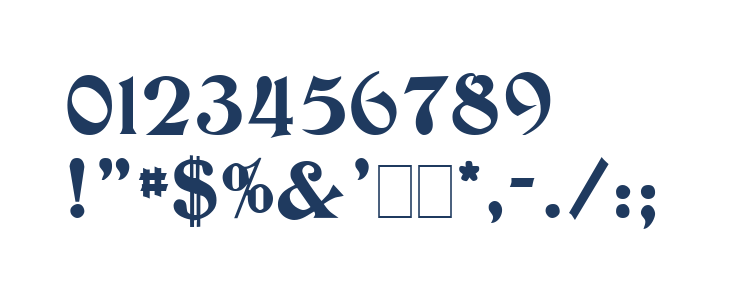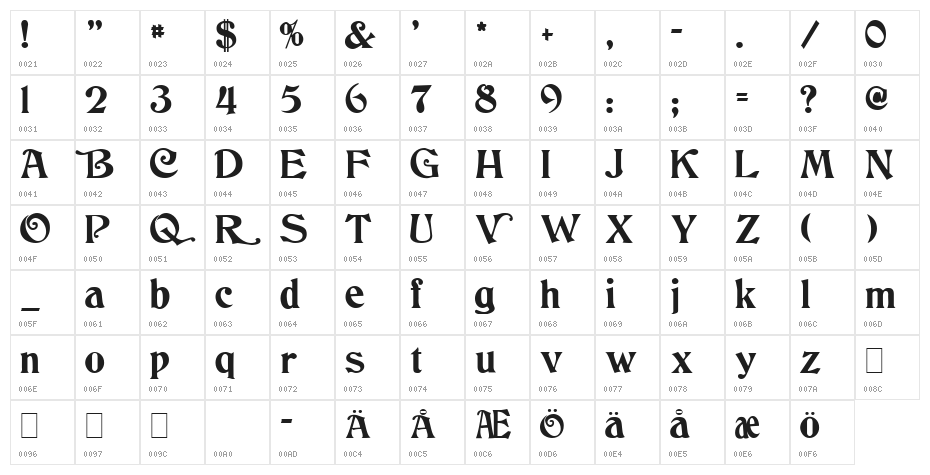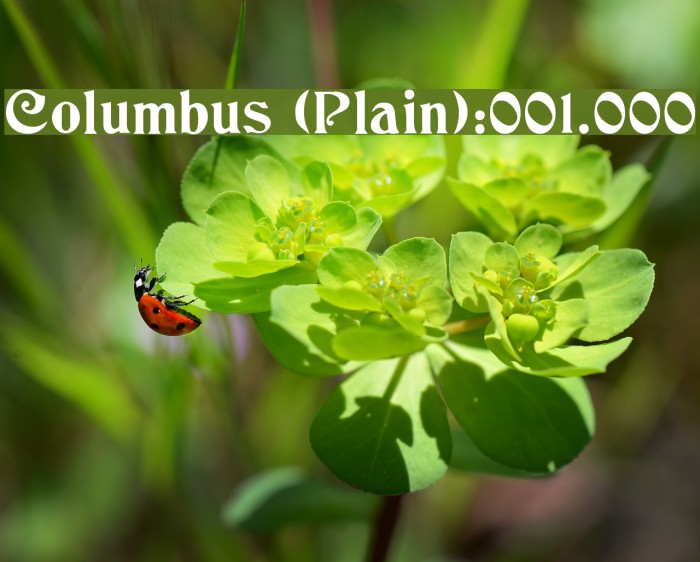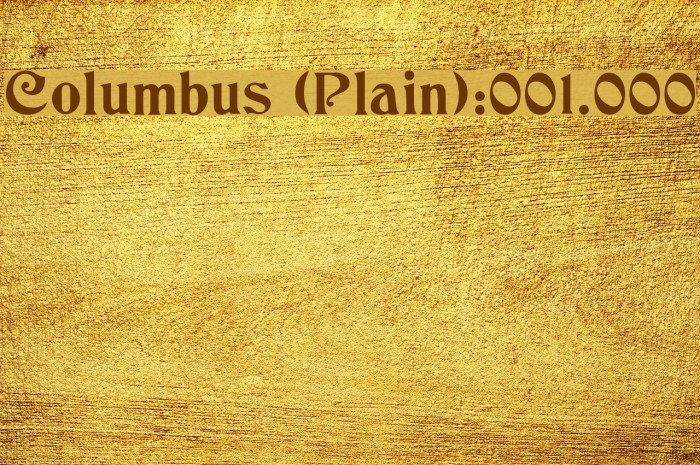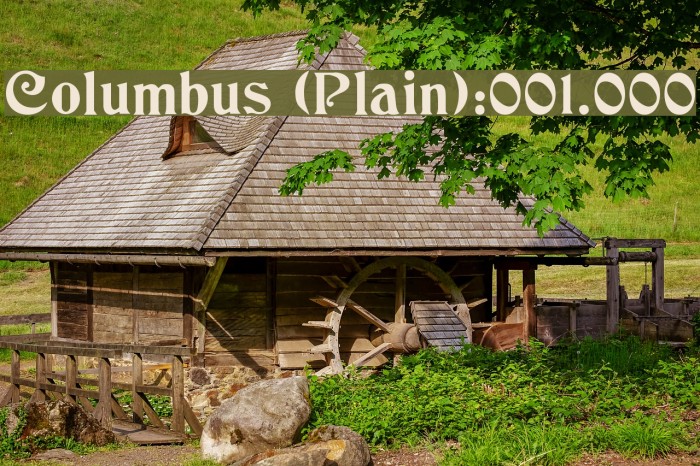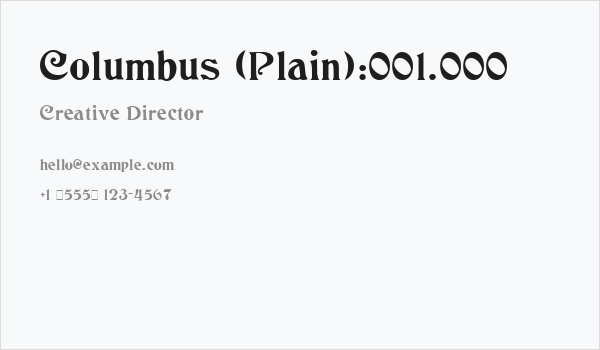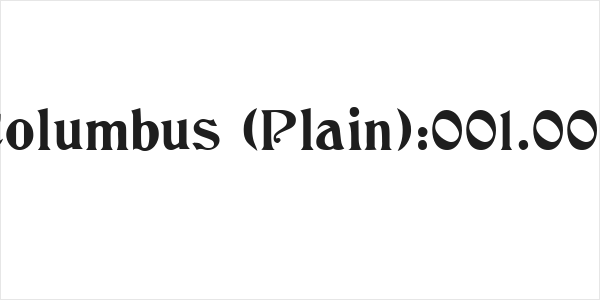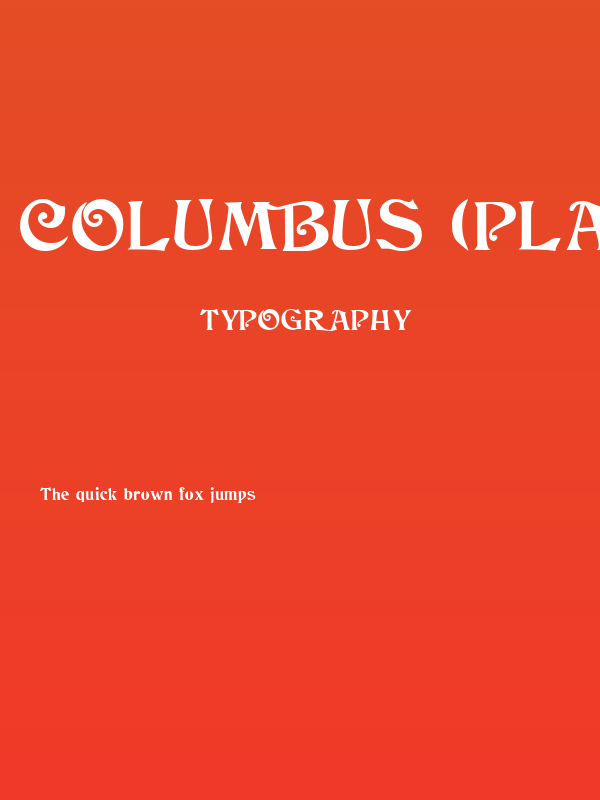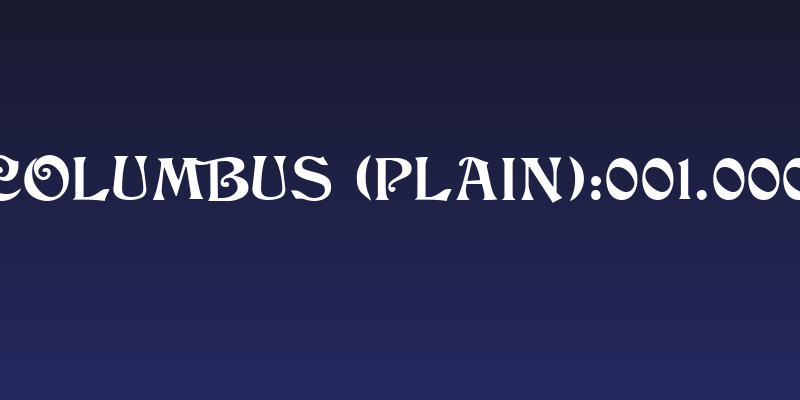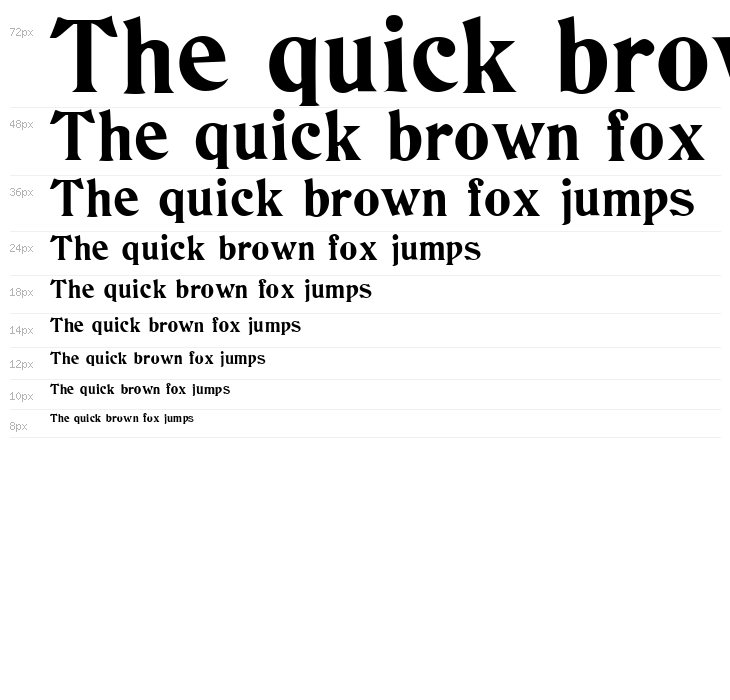
Columbus [Plain]:001.000 Font
Columbus [Plain]:001.000 Description
This font features a bold and distinctive style with sharp, angular serifs and a strong presence. The uppercase letters exhibit a unique blend of traditional serif elements with a modern twist, characterized by pointed edges and a slightly condensed form. The lowercase letters maintain a consistent style, offering a harmonious flow with rounded curves and pronounced serifs. The numerals are bold and clear, ensuring readability while maintaining the font's overall aesthetic. Special characters are designed with the same attention to detail, providing a cohesive look across all glyphs.